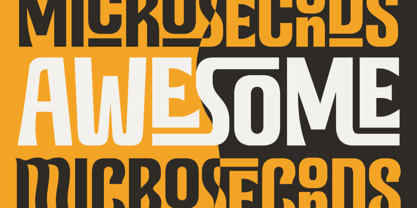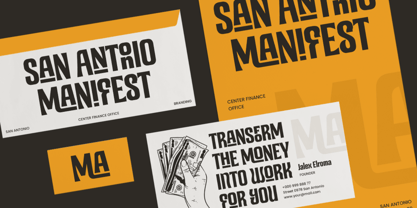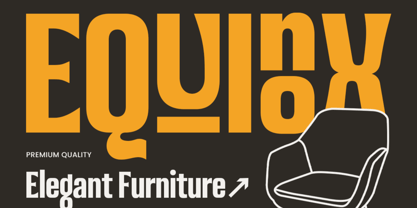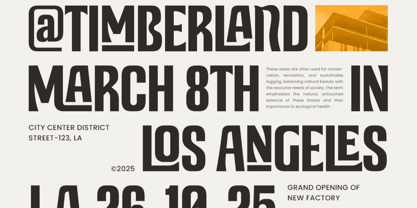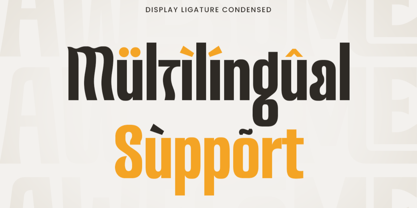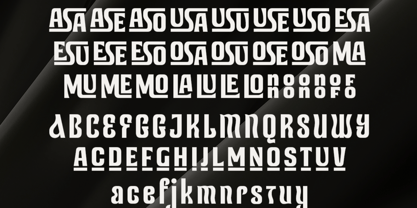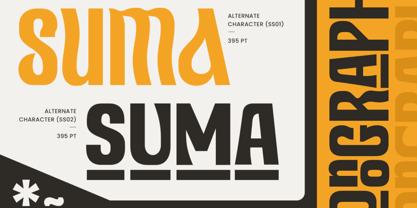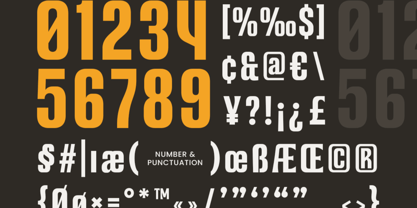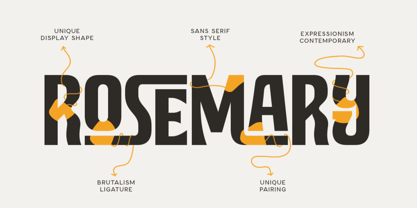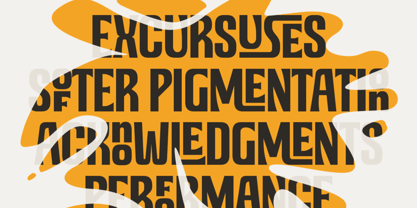
Arelune
The Arelune Font Family was designed by Olivia Love and published by Only Fonts. Arelune contains 1 styles. More about this family
Arelune is a modern display condensed font designed to create bold, stylish, and unforgettable typography. Crafted with sleek proportions and distinctive ligatures, Arelune combines sophistication with contemporary creativity in one powerful typeface. Inspired by modern editorial aesthetics and minimal luxury branding, this font delivers a refined visual presence that instantly captures attention. Its condensed structure allows designers to maximize space while maintaining strong readability and elegant balance. The carefully crafted ligatures add personality and artistic flow, giving every word a unique and premium appearance. Arelune is perfect for branding, logo design, posters, packaging, magazine covers, fashion campaigns, social media graphics, and modern advertising projects. Arelune feels bold yet polished, making it ideal for creatives who want typography that communicates confidence, style, and originality. Whether used in large display headlines or sophisticated brand visuals, this font adapts beautifully across both digital and print media. Its minimal yet expressive character helps create designs that feel modern, luxurious, and visually impactful. Designed to inspire creativity, Arelune encourages designers to explore unique compositions and eye-catching layouts. The combination of elegant ligatures and condensed forms creates a striking rhythm that elevates every project with a memorable and professional touch. Arelune Display Ligature Condensed Font Features: • Alternates and ligature characters ready • Punctuation, numbers, and symbols • Uppercase and lowercase • OpenType features • Multilingual support for 50 plus languages • Modern condensed display style • Elegant and stylish typography appearance